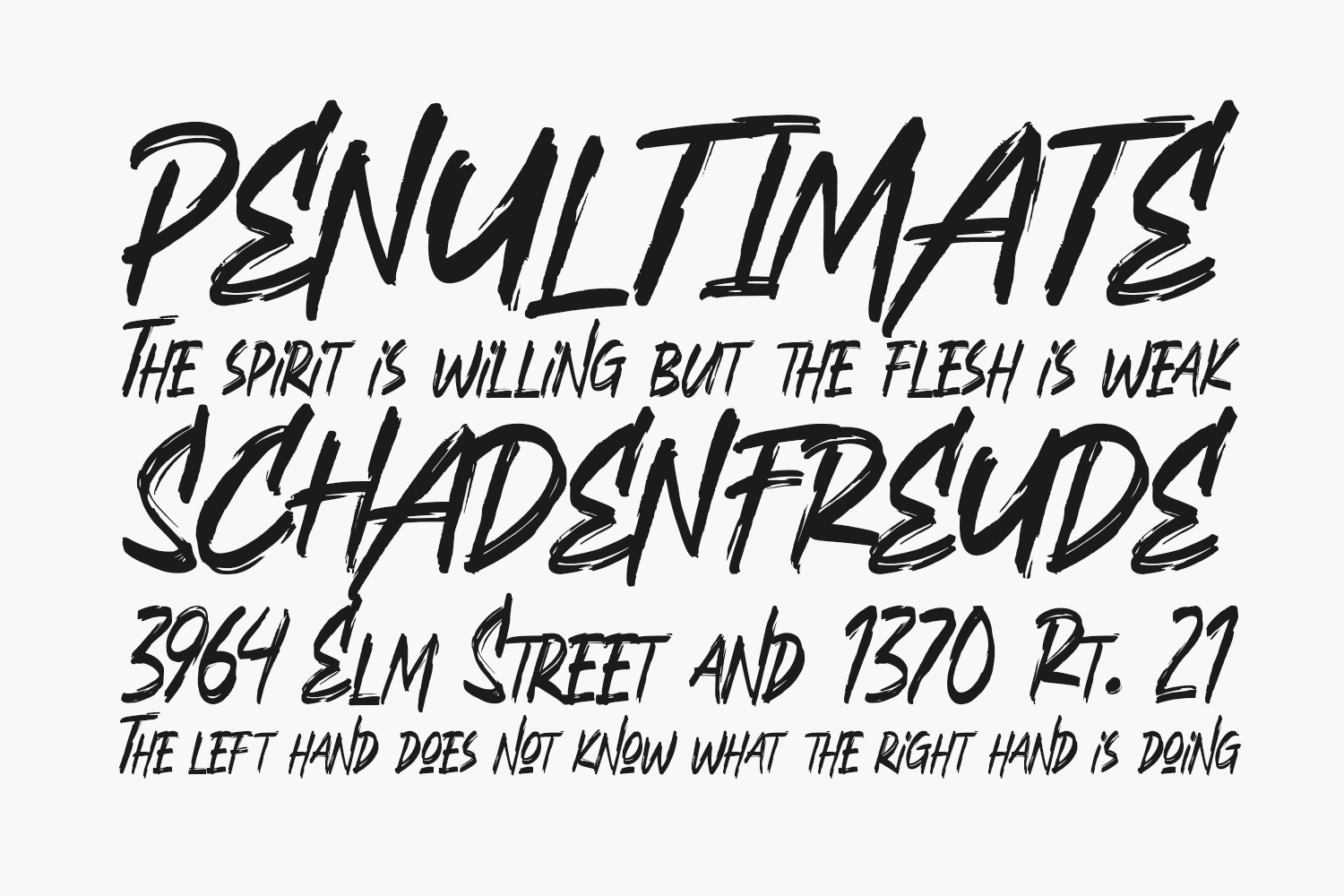
Introducing Vankours Free Font, an alluring display font that combines stunning brush strokes with a contemporary vibe. This font is an ideal choice for various themes, including urban, thriller, sporty, vibrant, and youth-inspired designs. Its captivating aesthetic is sure to leave a lasting impression on your audience. Vankours Free Font is free for personal use only. Please purchase the full version for commercial use.